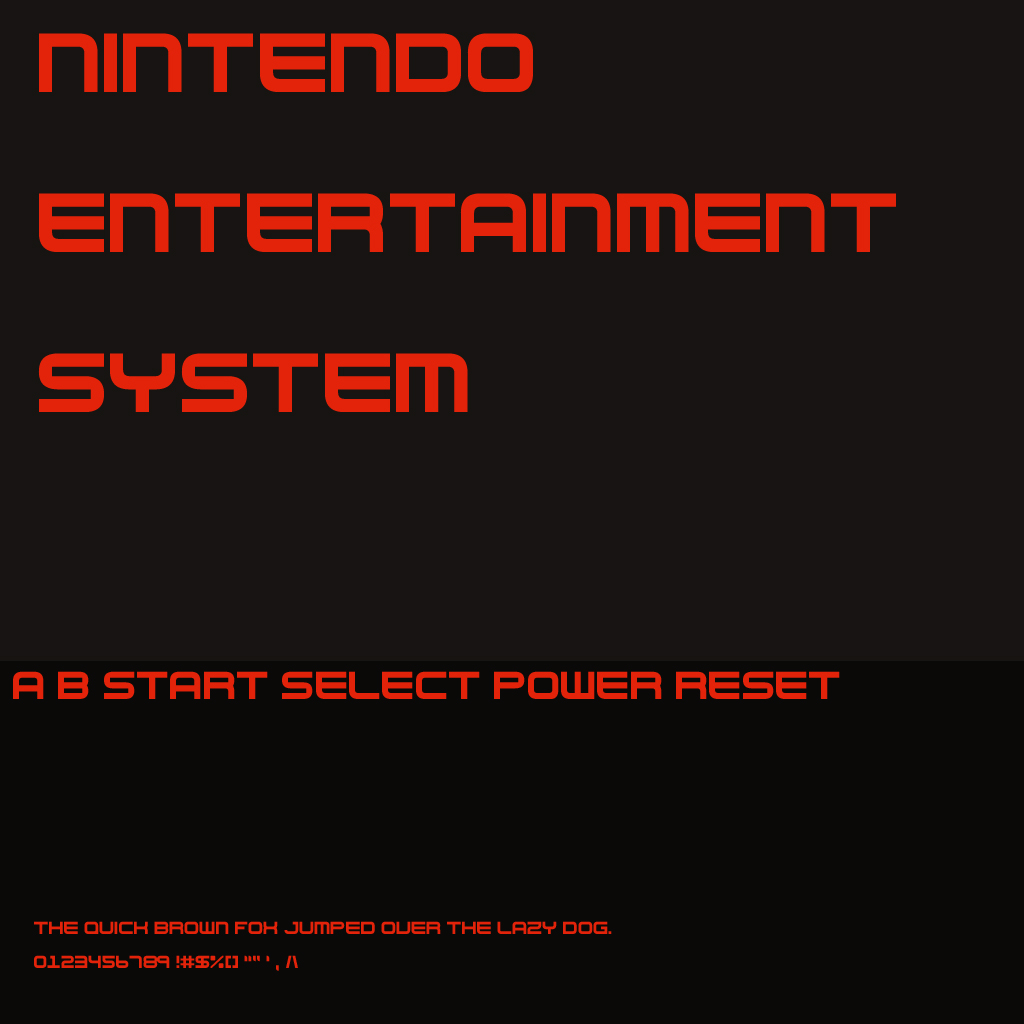
No fancy preview for this font. If you're looking at this you probably already know what the font on the NES controllers looks like... this is practically a perfect clone.This is designed to be used for NES related works, so all the time has been spent creating the capital letters.
lower case and numbers are supported by this font, but the lower case will still be capital, and I just didn't spend much time on the numbers.
this is helpful but there the letters only match the start select and AB buttons on the controller. The actual word nintendo has a capital N, and the rest of the letters are lowercase and do not match this font. Still this helps out a lot